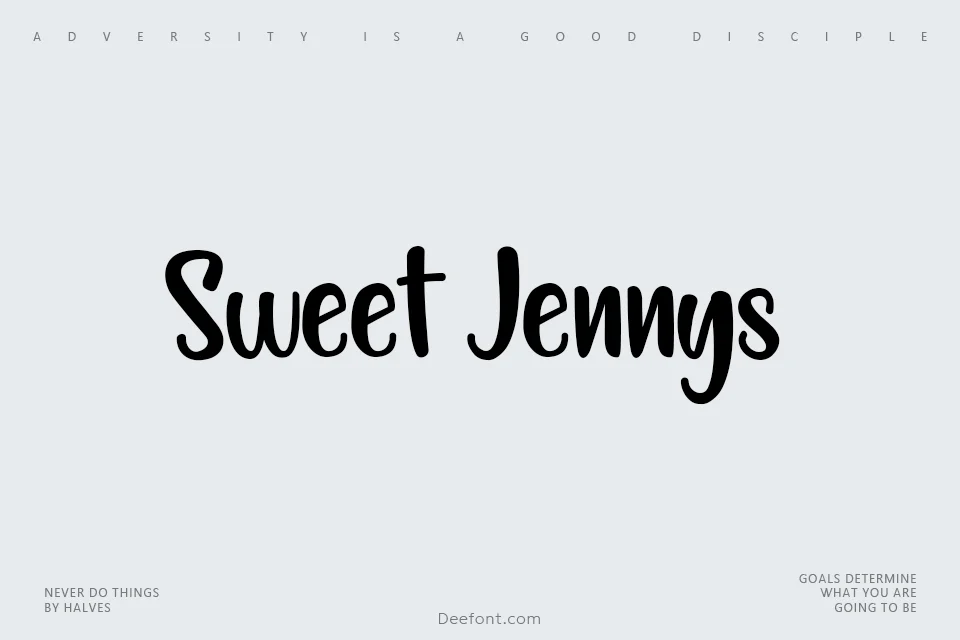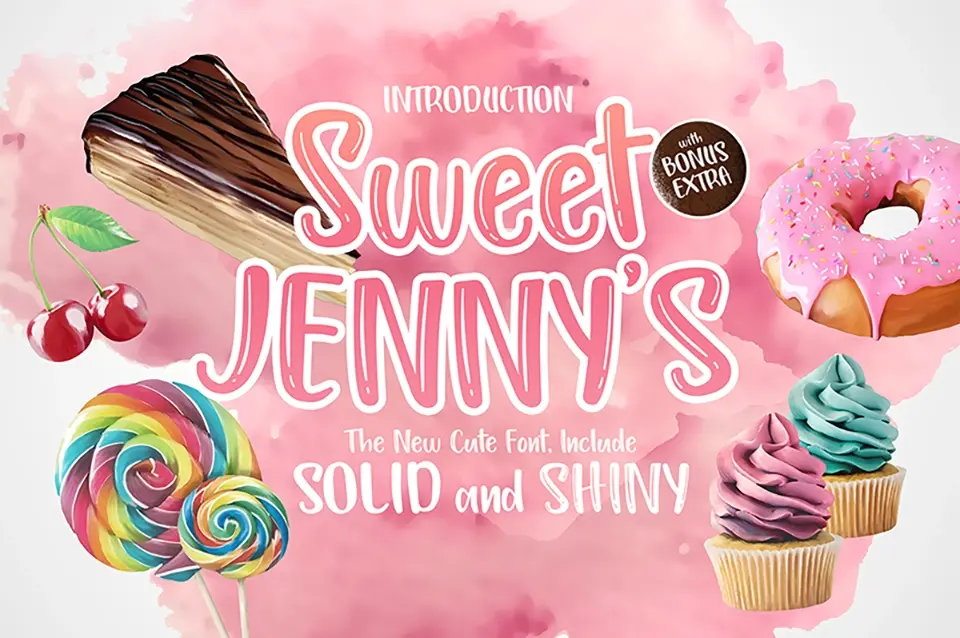
Sweet Jennys Font
The Sweet Jennys font is a delightful handwritten typeface that exudes a whimsical and playful charm. Perfectly suited for a wide range of creative pursuits, it features gracefully flowing strokes and a natural, organic look. The font is ideal for invitations, greeting cards, branding, and projects that require a touch of personality. With its balance of legibility and artistry, Sweet Jennys stands out in both digital and print applications, making it an excellent choice for designers seeking a unique and approachable style.